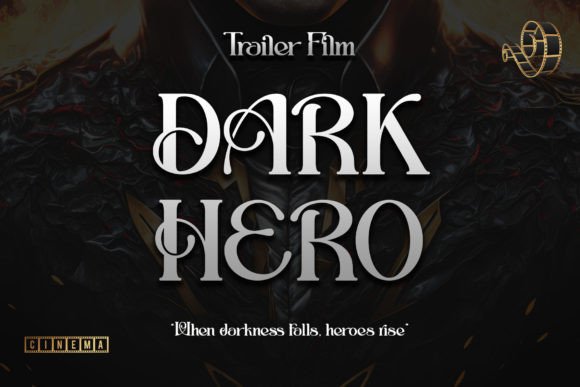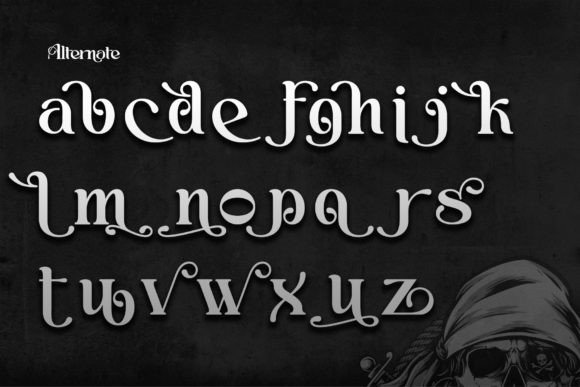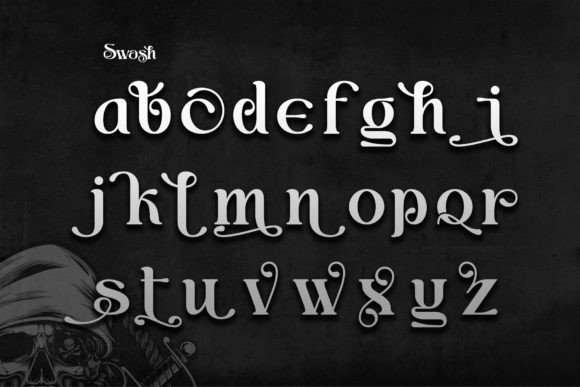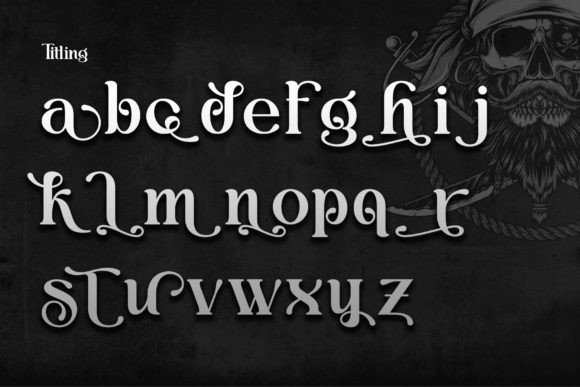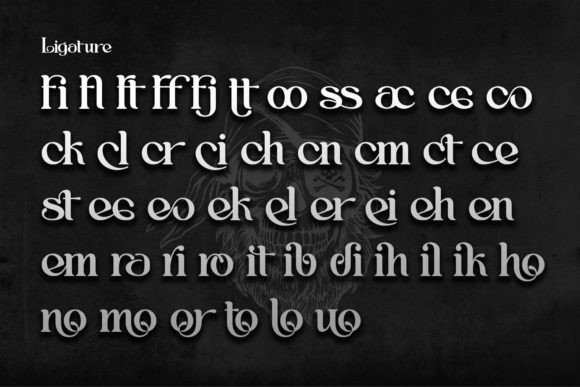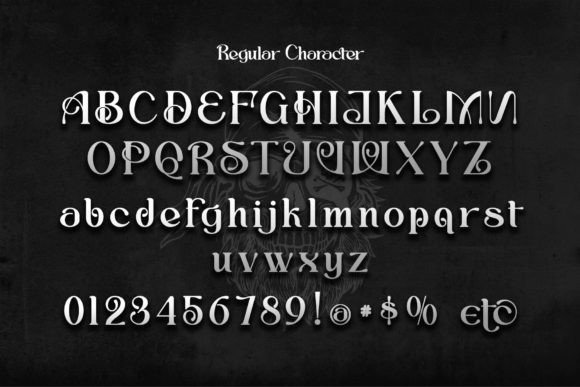
The Timeless Allure of Black Oldest: A Designer’s Best Friend
I still remember the design project that led me to discover Black Oldest. I was working on a luxury branding project for a high-end fashion client, and I was struggling to find the perfect font that exuded elegance and sophistication. The client wanted a font that was bold, yet refined, and would elevate their brand to new heights. After hours of scouring through font libraries, I stumbled upon Black Oldest, and it was love at first sight! ✨
An Honest Review: What I Love and What I Don’t
- ✅ Timeless design: Black Oldest has a classic, serif design that never goes out of style.
- ✅ Versatility: This font is perfect for a wide range of designs, from luxury logos to editorial designs, magazines, and packaging.
- ✅ Alternates and ligatures: The font comes with a range of alternates and ligatures, allowing you to create unique and captivating typography designs.
- ✅ PUA-encoded: The font is PUA-encoded, giving you access to all the glyphs and characters.
The Not-So-Good Stuff
- 🤔 Requires some practice to master: With so many alternates and ligatures, it can take some time to get familiar with the font and make the most of its features.
The Designer Inspiration Behind Black Oldest
Black Oldest was designed with the goal of creating a font that would evoke a sense of timelessness and sophistication. The designer, inspired by classic serif fonts, aimed to create a font that would be both elegant and bold. With its neat and clean design, Black Oldest is perfect for designers who want to add a touch of luxury to their designs.